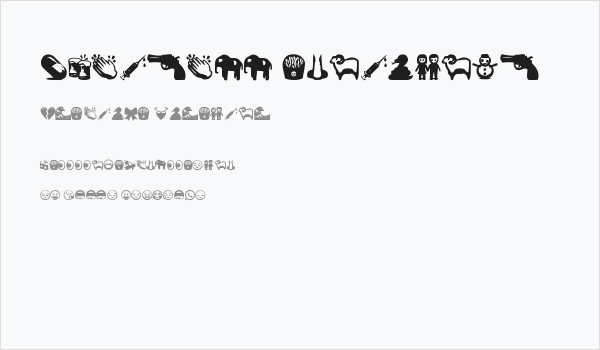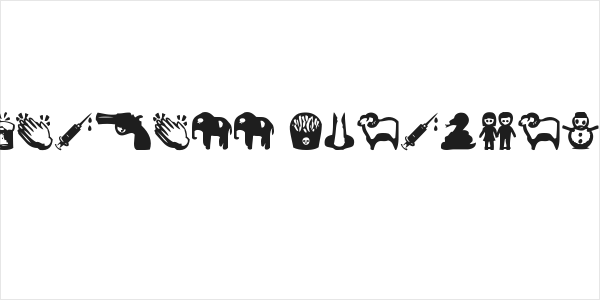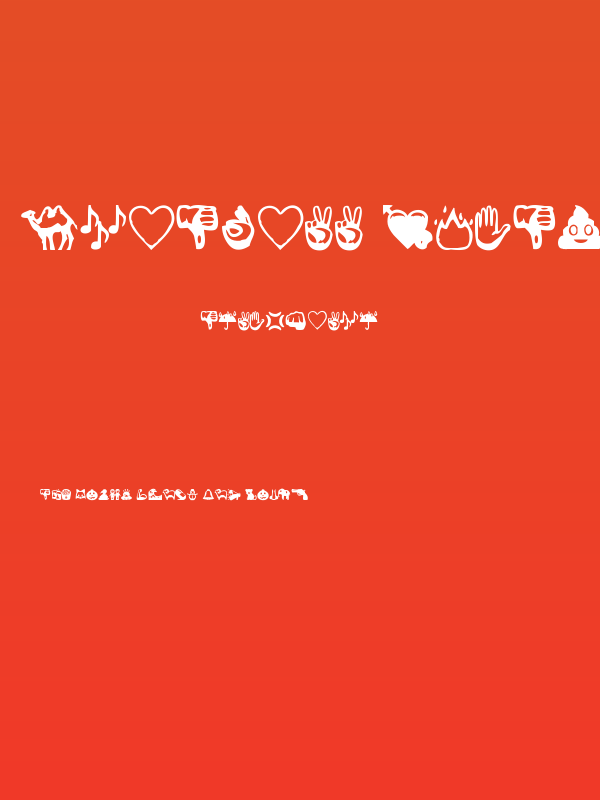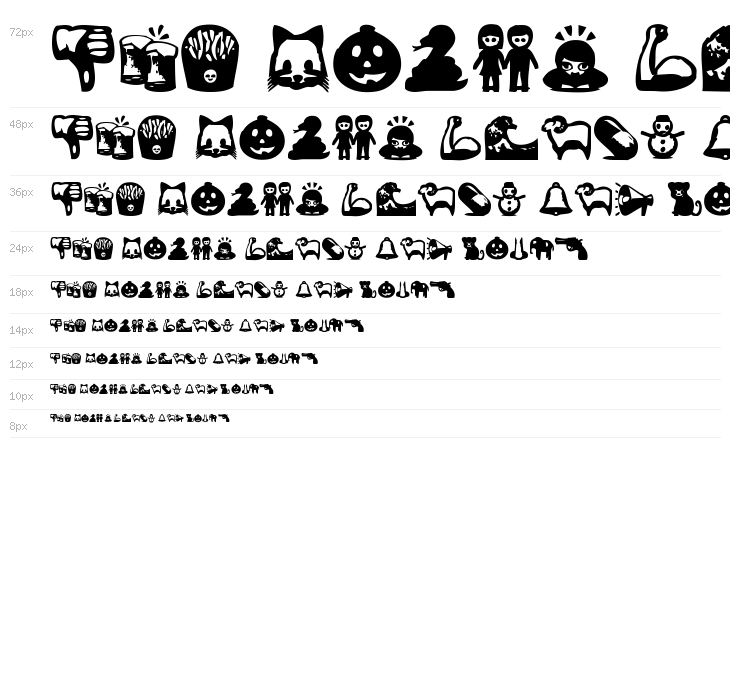
whatsapp emoticons Font
whatsapp emoticons Description
A playful and bold collection of emoticon and symbol glyphs, featuring a variety of expressive faces, hand gestures, animals, objects, and miscellaneous icons in a consistent, thick-lined, silhouette style. The icons are highly stylized, with rounded and exaggerated forms, designed for clear legibility at small sizes.
| Overall Style | Playful, Modern, Decorative |
| Use Case | Icons, Stickers, Messaging, Social Media, Decorative Elements |
| Proposed Projects | Messaging apps, stickers, social media graphics, playful branding, digital communication tools. |